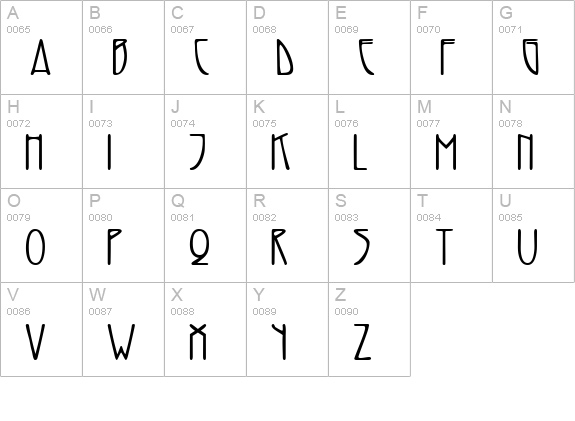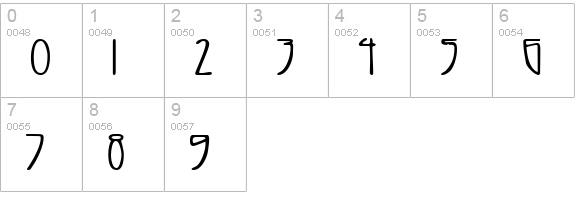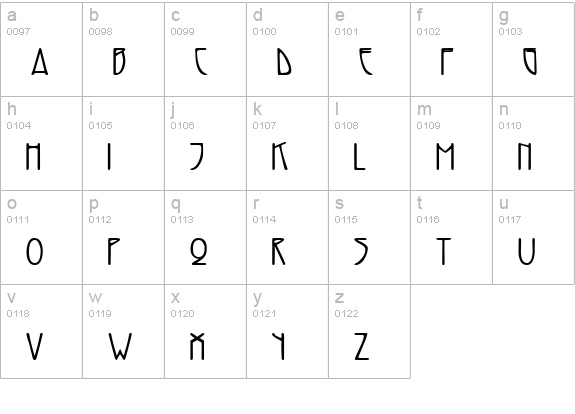
Adresack™ font is a modern and stylish typeface that exudes creativity and elegance. Featuring a unique blend of sharp angles and smooth curves, this font is perfect for adding a touch of sophistication to any project. With its clean lines and contemporary design, Adresack™ is versatile and suitable for a wide range of applications, from branding to editorial design. What sets Adresack™ apart is not just its aesthetic appeal, but also its accessibility. This exquisite font is available for free download at FontsMarket.com, making it easy for designers and creatives to incorporate it into their work without any cost. Whether you're working on a logo, website, or print materials, Adresack™ offers a fresh and distinctive look that will elevate your design to the next level. Don't miss the opportunity to enhance your projects with the stunning Adresack™ font. Download it for free today and bring a touch of sophistication to your designs!